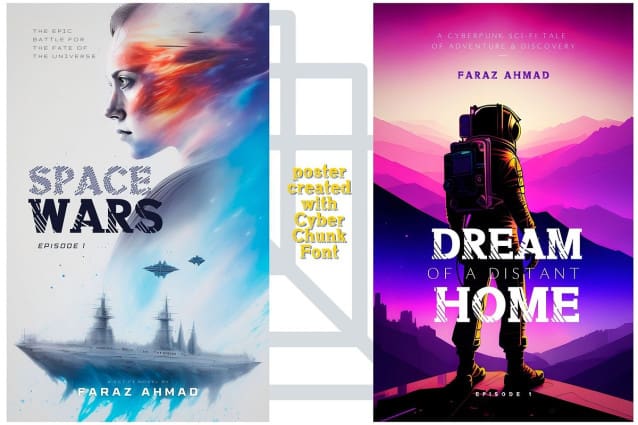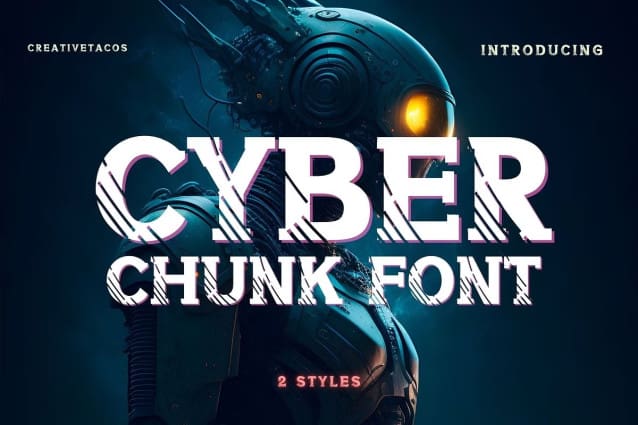
Cyber Chunk Font
Cyber Chunk Font is a bold and futuristic typeface designed to make a strong impact. With its chunky, blocky letters and cyber-inspired details, it’s perfect for modern and tech-driven designs. Whether you’re working on logos, titles, or branding, this font adds a powerful and futuristic edge to your projects.